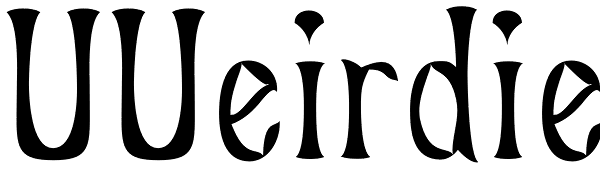
UUeirdie
UUeirdie is weird. The Condensed-Light style was derived from the star-serifed font Asterx by replacing the star serifs with a rounded flare serif. Widening that style resulted in UUeirdie-Regular and the bold was then constructed to complement it...